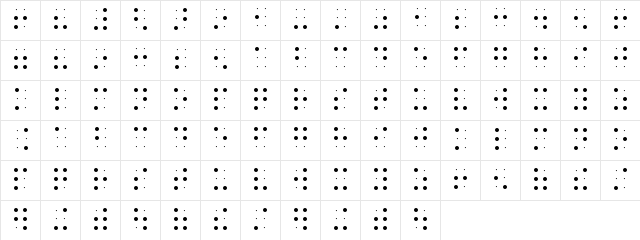
Braile font Regular Font Preview
Braile font Regular
Braile font Regular Font Details
Design Context for Braile font Typeface
Braile font is a composed and adaptable typeface that performs quietly and consistently across a wide range of design contexts.